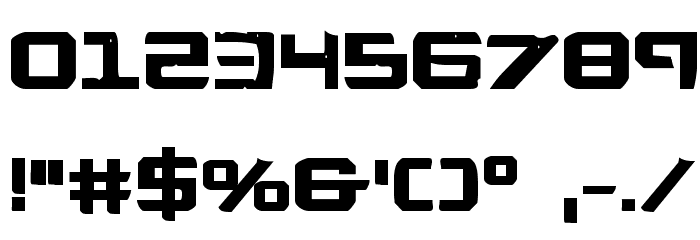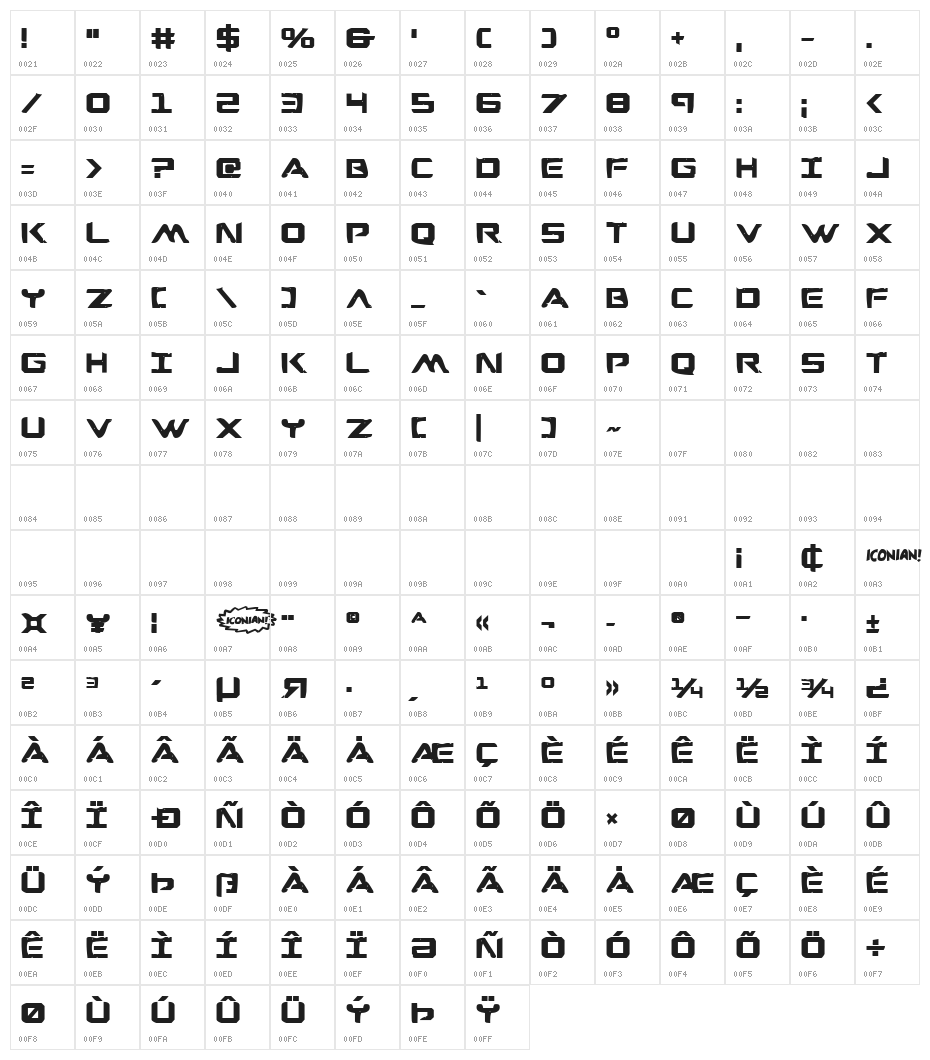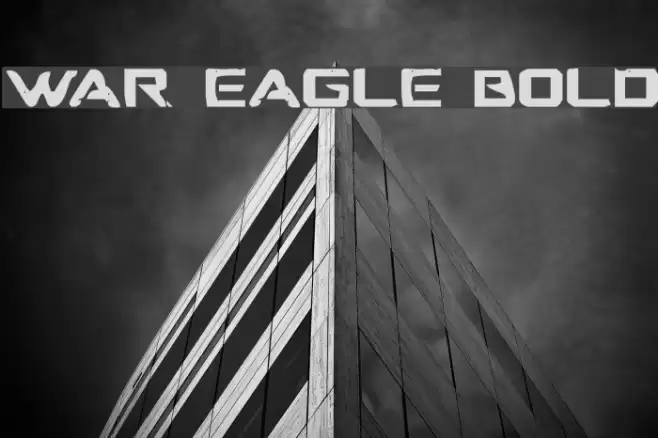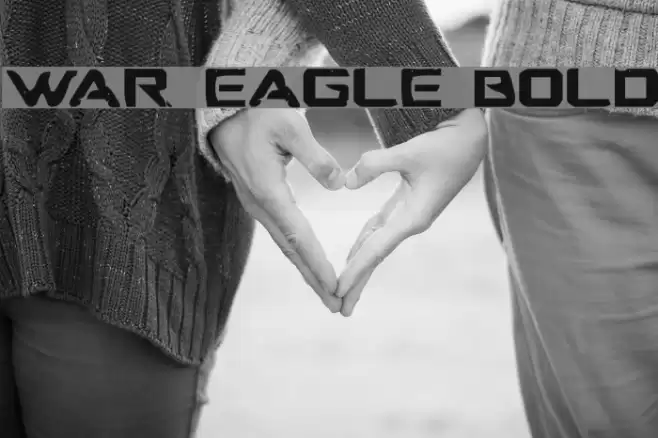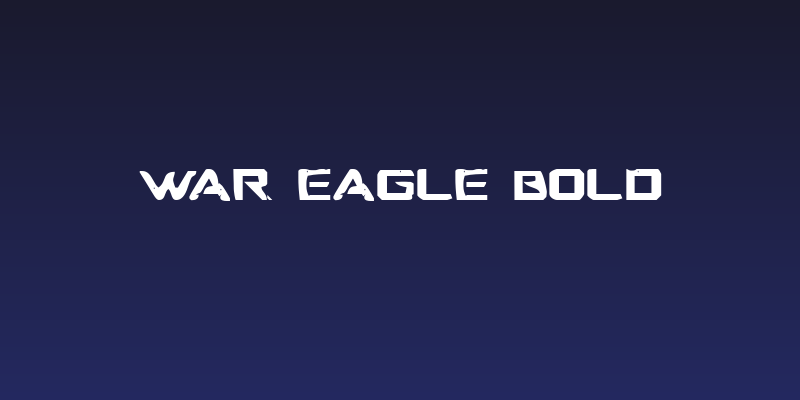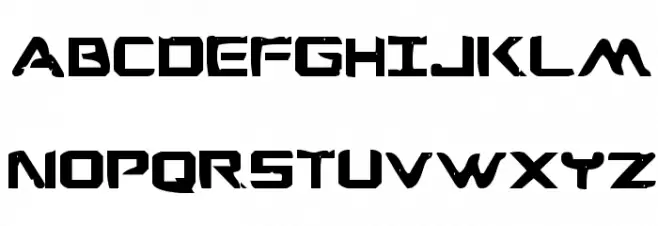
War Eagle Bold Font
War Eagle Bold Description
This font features a bold, angular design with a futuristic and industrial aesthetic. The characters are constructed with sharp edges and geometric shapes, giving it a strong and commanding presence. The uppercase and lowercase letters maintain a consistent style, with a unique cut-out effect that adds to its distinctiveness. The numerals and special characters follow the same design principles, ensuring uniformity across all glyphs. This font is ideal for projects that require a modern and edgy look.
| Proposed Projects | Ideal for branding, posters, video game titles, and any project needing a modern, edgy look. |